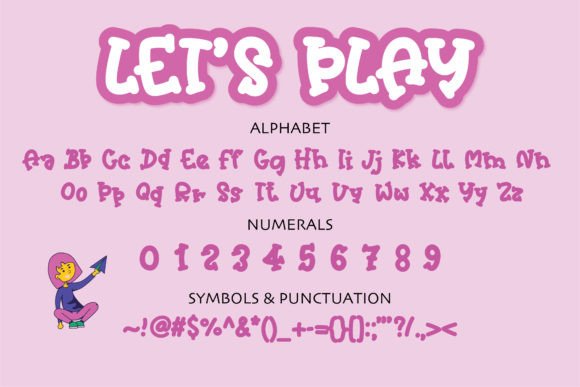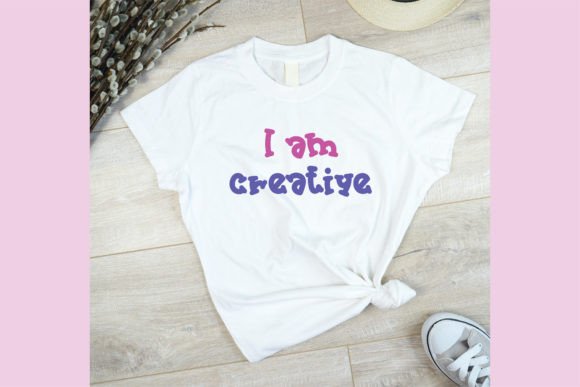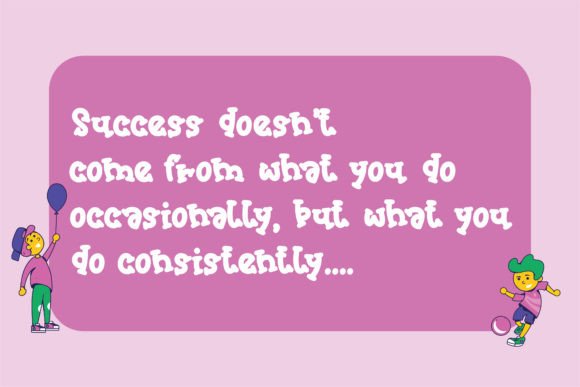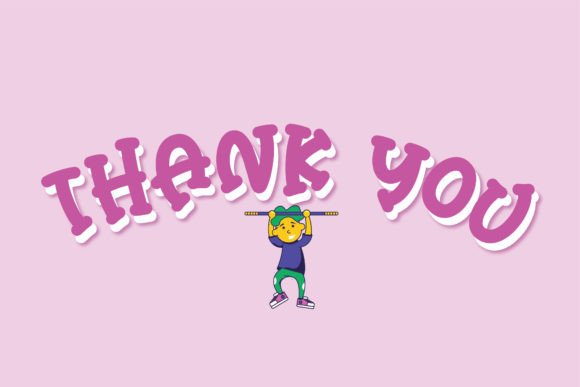
Introduction to Let’s Play Font
Do you remember the thrill of holding a pen and scribbling down your thoughts, watching as your handwriting danced across the page? That’s exactly the feeling you’ll get with the Let’s Play Font – a charming and whimsical handwritten font that’s perfect for adding a personal touch to your designs. Whether you’re working on a creative project or just need a design resource that’s easy to use, this font is sure to delight.
As a designer, you know the importance of having high-quality fonts at your fingertips. The Let’s Play Font is a versatile tool that can be used on a variety of projects, from wedding invitations and thank you cards to logos and business cards. And with its transparent background, you can easily layer it over other design elements to create a unique look.
Key Features of Let’s Play Font
- High-quality design resource ideal for creative projects, such as video game-related content, memes, and social media posts.
- Comes with a transparent background, allowing for easy integration into various design elements.
- Features a bold, playful style with a resolution of 1024 x 1024 pixels at 300 DPI.
- Includes a range of glyphs, including uppercase and lowercase letters, numbers, and special characters.
- Designed specifically for use in digital media, making it perfect for streaming and YouTube content.
Honest Review: Let’s Play Font
I recently had the chance to work with the Let’s Play Font, and I must say it’s been a game-changer for my creative projects. This high quality font is perfect for any designer looking to add a touch of fun and whimsy to their designs.
- ✨ Customizable: The Let’s Play Font comes in a variety of styles and weights, making it easy to find the perfect fit for your design.
- ✨ High-quality design: The font is crisp and clear, with a transparent background that makes it easy to work with.
- ⚠️ Limited character set: While the font is versatile, it does lack a comprehensive character set, which can be limiting for some designers.
- ⚠️ Not ideal for formal designs: Due to its playful nature, the Let’s Play Font may not be the best choice for formal or professional designs.
Overall, I’m really impressed with the Let’s Play Font. It’s a great design resource that’s perfect for creative projects. While it may have some limitations, I think it’s a great addition to any designer’s toolkit.
For a high-quality design, use the Let’s Play Font in combination with a transparent background to create a visually appealing effect. You can also experiment with different font sizes and colors to add depth and emphasis to your design.
The Let’s Play Font is a great design resource for creative projects, such as video game tutorials, gaming-related blog posts, or social media graphics. Its high-quality design and free download make it an ideal choice for anyone looking to add a professional touch to their project.